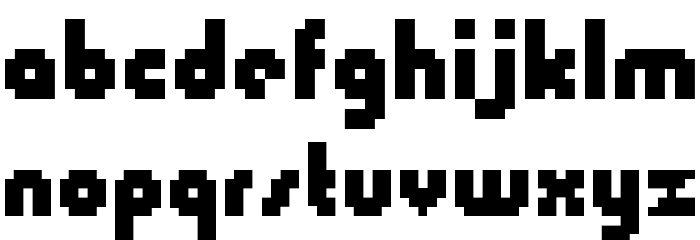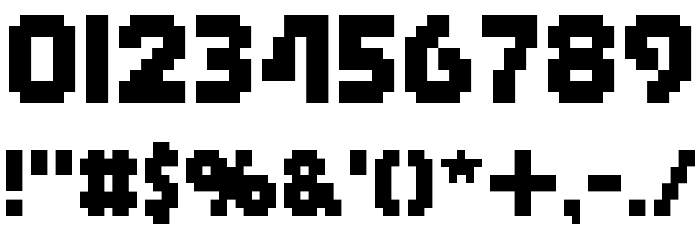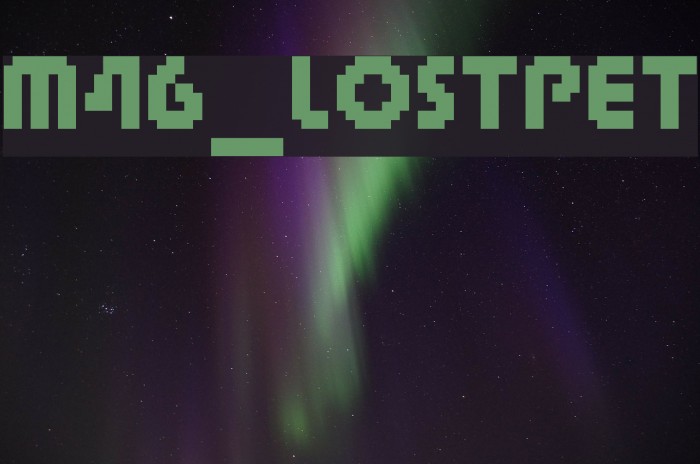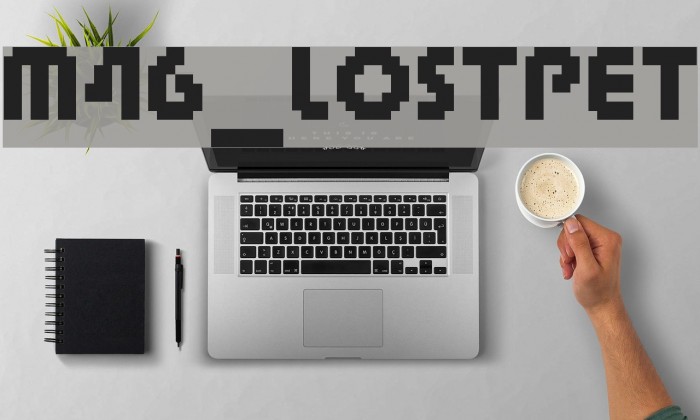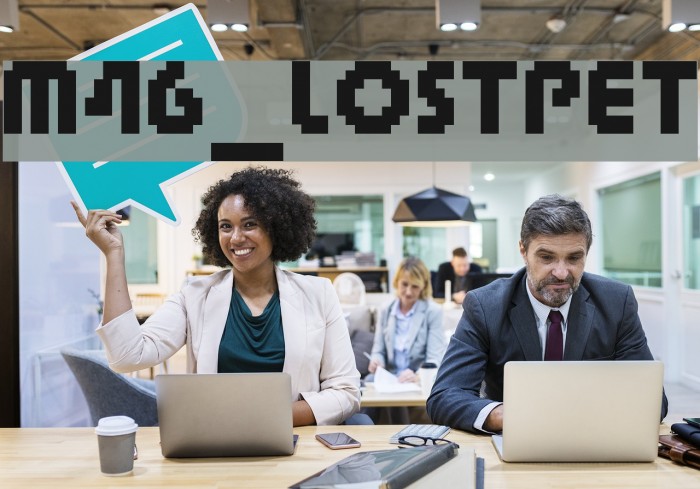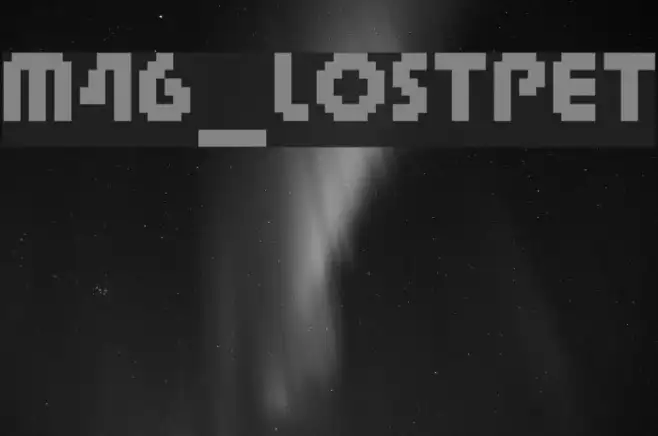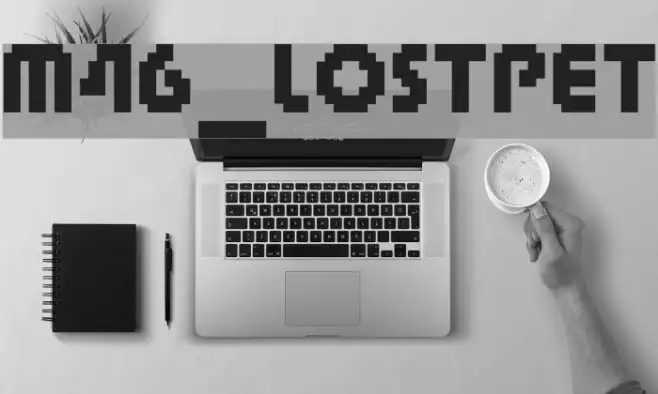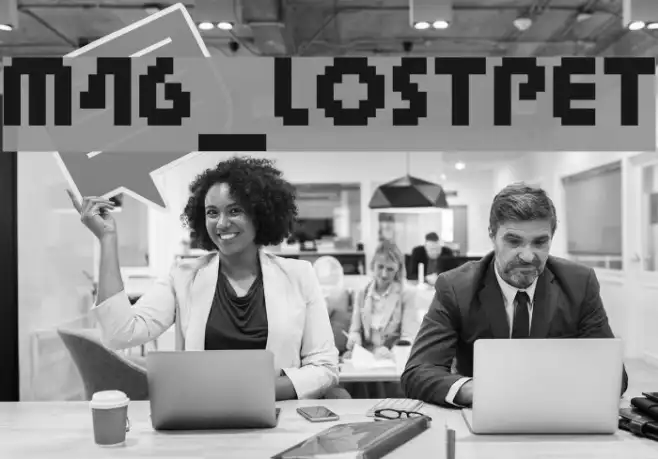
M46_LOSTPET Font
This font features a bold, pixelated style reminiscent of early digital displays and retro video games. Each character is constructed with a blocky, geometric design, giving it a distinctly digital appearance. The uppercase and lowercase letters maintain a consistent height, contributing to a uniform look across the text. The numbers and special characters follow the same pixelated pattern, ensuring a cohesive aesthetic throughout. This font's unique style is both nostalgic and modern, making it suitable for projects that aim to evoke a sense of retro digital culture.
- Proposed Projects: Ideal for video game design, retro-themed posters, digital art projects, and any creative work that seeks to capture a nostalgic digital vibe.
- Overall Style: Retro, Digital